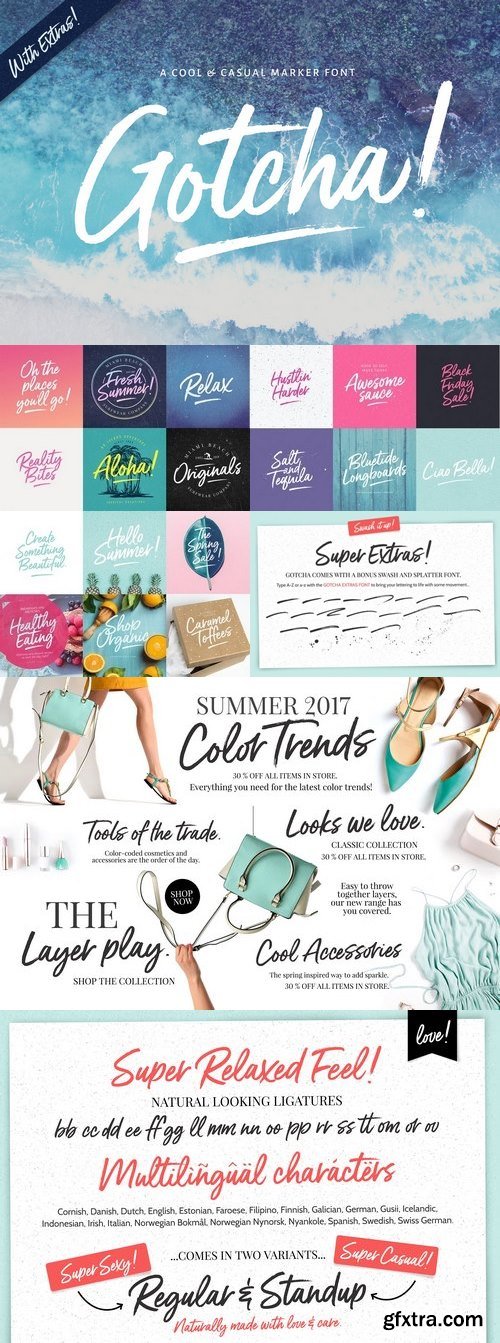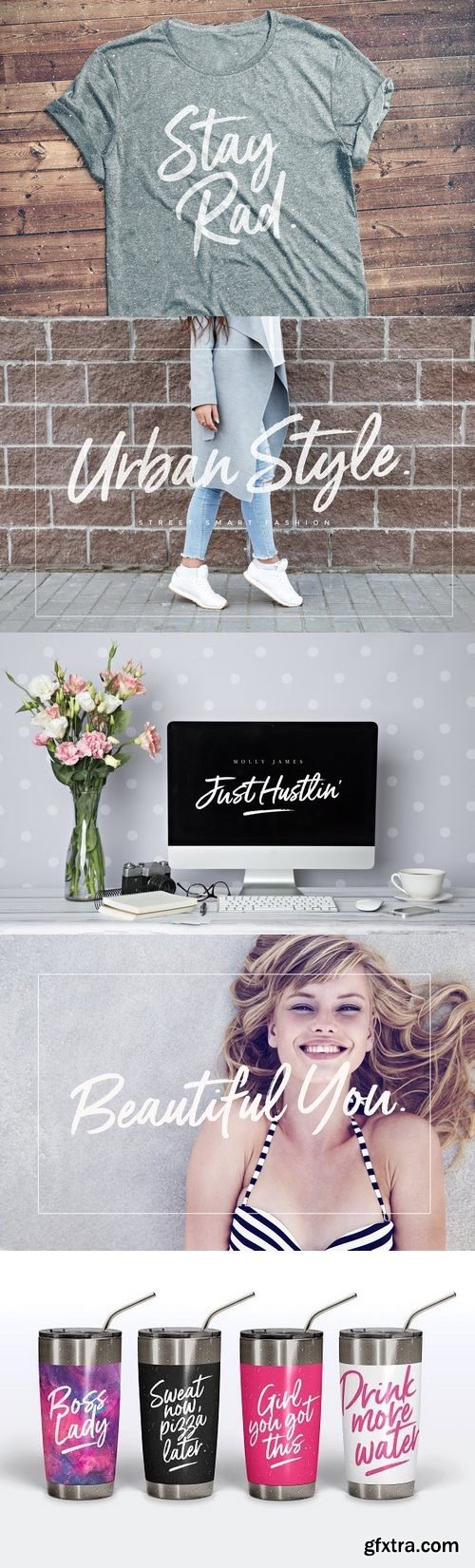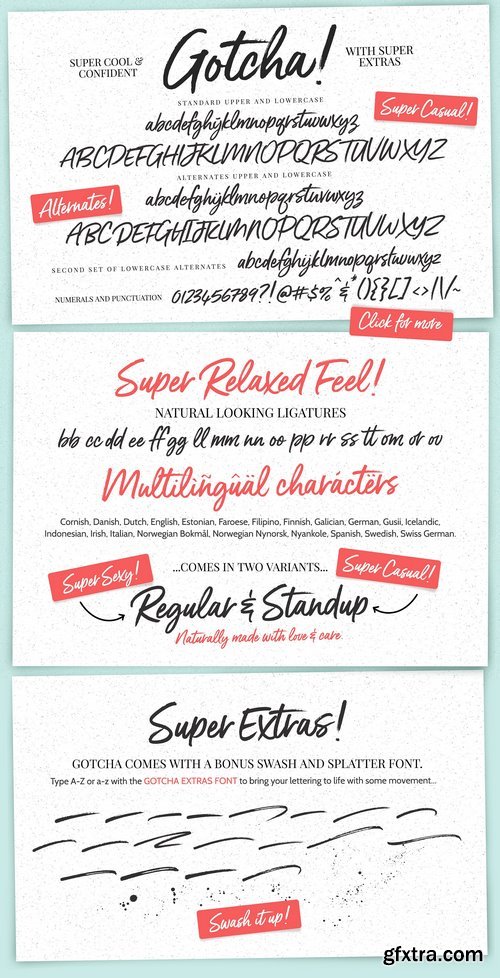
CM - Gotcha Marker Font + Extras 1552409
Say hello to GOTCHA! A versatile new marker font with bounce and vigor and a a super-casual vibe! I created Gotcha! hoping to make a completely relaxed and natural-looking handwritten script for you :) - I wanted create a font that passes as a custom hand-lettered piece , rather than something that is very obviously a typed out font :) A slightly bouncing baseline, and slight variances in character width and height help create this feel. The Gotcha fonts are incredibly versatile , from street urban, to styled fashionista, to hearty food branding - whatever the weather, Gotcha has you covered :) EXTRA LETTERS : Gotcha! comes with a set of alternate upper and lower case letters, and a second set of lowercase letters - this way you can write one word in a million different ways - and keep things ultra natural looking. A comprehesive set of double letter ligatures are also included. EXTRA SWASHES AND TEXTURE : Gotcha! also comes with an "Extras Font" which include textured swashes and splatters/grit to add some pizazz to you design.